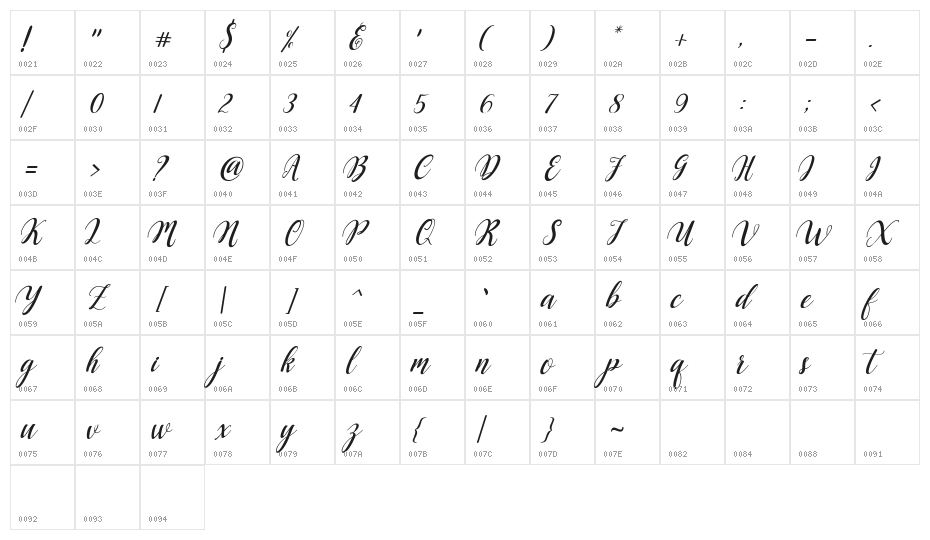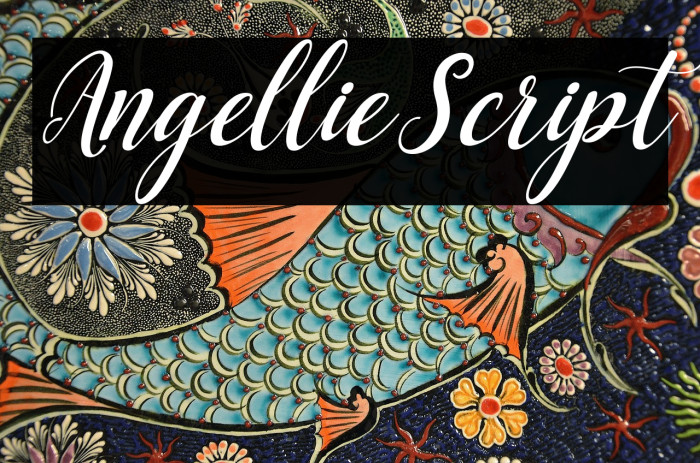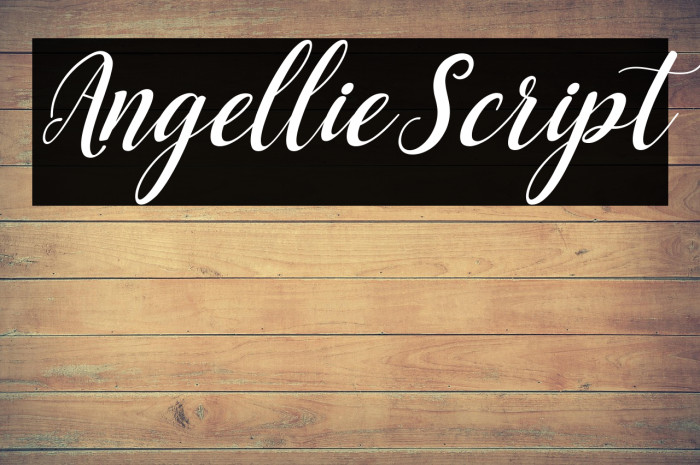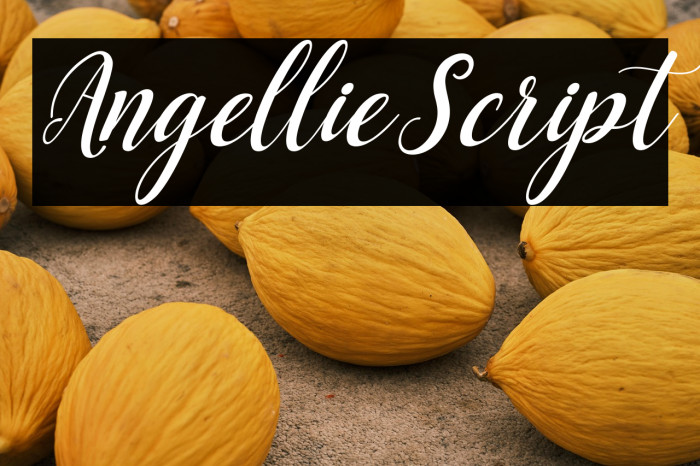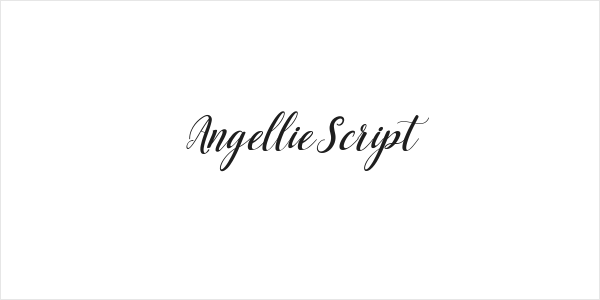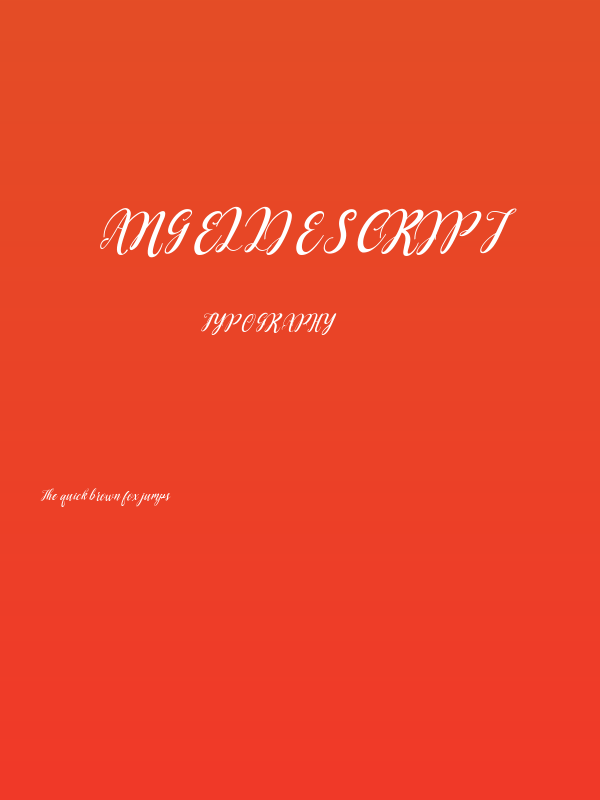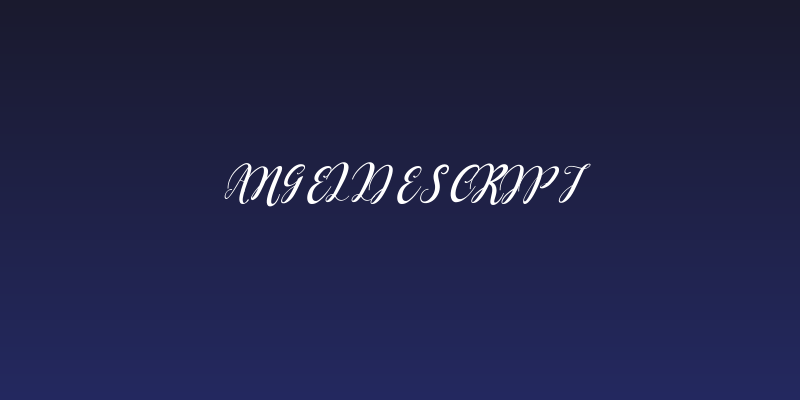
AngellieScript Font
AngellieScript Description
This elegant script font features flowing, cursive letters with a classic and sophisticated appearance. The uppercase letters are ornate and slightly larger than the lowercase, which are equally graceful with smooth, connected strokes. The numerals maintain the same fluid style, adding a touch of elegance to any numerical display. Special characters are designed with the same attention to detail, ensuring consistency across all glyphs. The font's overall design is reminiscent of traditional calligraphy, making it suitable for formal invitations, branding, and decorative purposes. Its high contrast in stroke thickness adds to its readability and visual appeal.
| Overall Style | Classic |
| Proposed Projects | Ideal for wedding invitations, luxury branding, greeting cards, and decorative signage. |